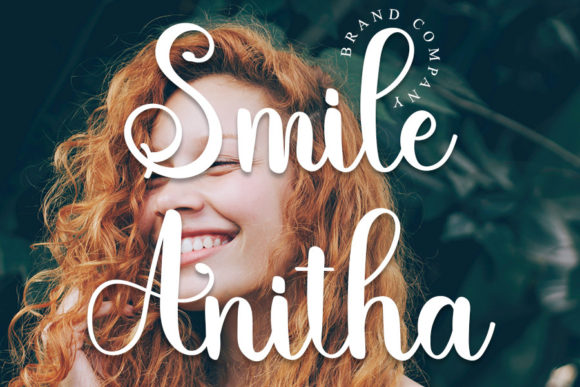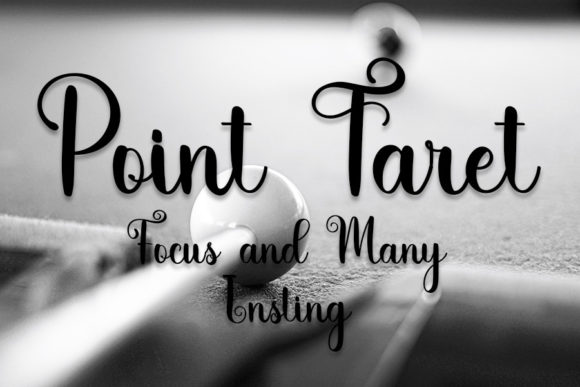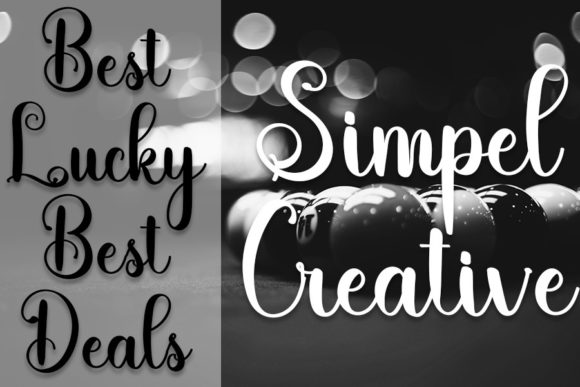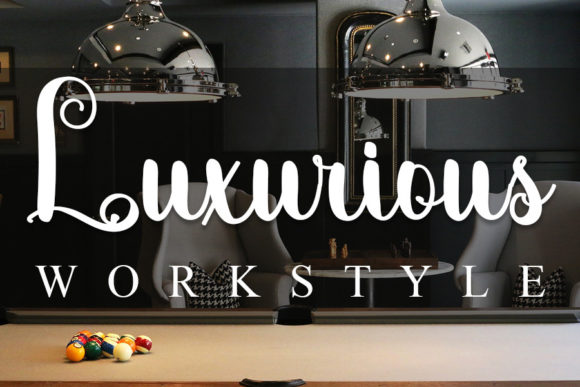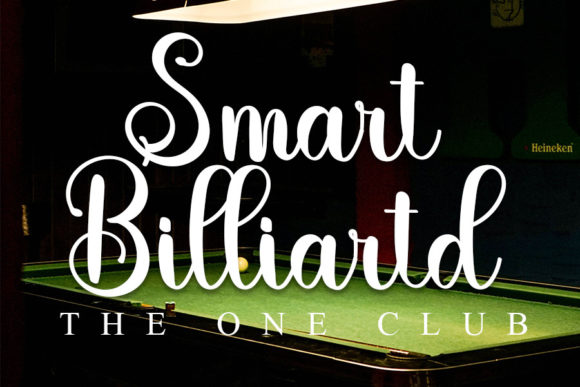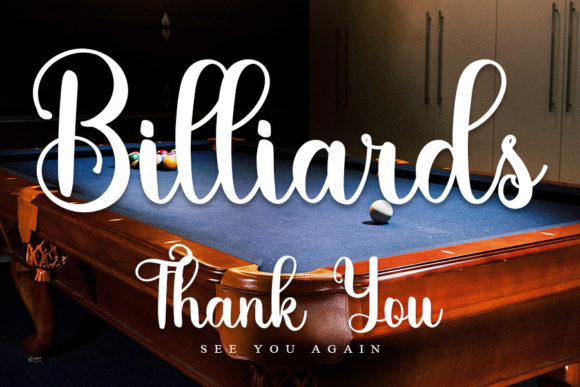
Billiards Font: Elevate Your Designs with Sophistication and Elegance
In the world of typography, a well-chosen font can make all the difference in elevating your design from ordinary to extraordinary. If you’re a designer or crafter looking for a font that exudes sophistication and elegance, look no further than the Billiards Font. This chic, refined script font is the perfect match for any project that requires a touch of luxury and refinement.
What is Billiards Font?
Billiards Font is a stylish script font that is designed to bring a sense of elegance and sophistication to your designs. With its flowing lines and refined letterforms, this font is perfect for creating beautiful and eye-catching text that will leave a lasting impression on your audience. Whether you’re working on a branding project, a wedding invitation, or a packaging design, Billiards Font is the perfect choice.
Key Features of Billiards Font
So, what makes Billiards Font so special? Here are just a few of its key features:
- Stylish Alternates: Billiards Font comes with a range of stylish alternates that allow you to customize your text and add a touch of personality to your designs.
- Ligatures: The font also features a range of ligatures that allow you to create beautiful, flowing text that is a joy to read.
- Refined Letterforms: Each letterform in Billiards Font has been carefully crafted to create a sense of elegance and sophistication.
- Easy to Read: Despite its elegant appearance, Billiards Font is also highly legible, making it perfect for use in a wide range of design applications.
Uses for Billiards Font
Billiards Font is a versatile font that can be used in a wide range of design applications, including:
- Branding: Use Billiards Font to create a luxurious and sophisticated brand identity that will help your business stand out from the crowd.
- Wedding Invitations: The font’s elegant appearance makes it perfect for use in wedding invitations, save-the-date cards, and other wedding stationery.
- Packaging Design: Billiards Font is also a great choice for packaging design, particularly for luxury brands that want to create a high-end feel.
- Signage: The font’s stylish alternates and ligatures make it perfect for use in signage, particularly in high-end retail environments.
Tips for Using Billiards Font
Here are a few tips for getting the most out of Billiards Font:
- Use it Sparingly: While Billiards Font is a beautiful font, it can be overwhelming if used too much. Use it sparingly to create a sense of elegance and sophistication.
- Experiment with Alternates: Don’t be afraid to experiment with the font’s stylish alternates to add a touch of personality to your designs.
- Pair it with Other Fonts: Billiards Font pairs well with a range of other fonts, including sans-serif fonts and serif fonts. Experiment with different pairings to find the one that works best for your design.
In conclusion, Billiards Font is a chic, refined script font that is perfect for designers and crafters looking to add a touch of sophistication and elegance to their designs. With its stylish alternates, ligatures, and refined letterforms, this font is sure to elevate your designs to the next level. Whether you’re working on a branding project, a wedding invitation, or a packaging design, Billiards Font is the perfect choice.